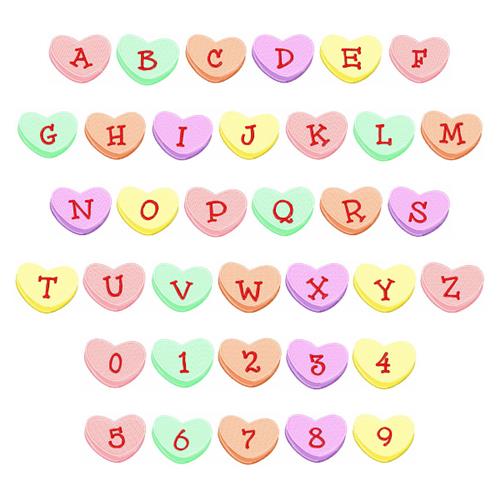
Embroidery Patterns is happy to present Conversation Hearts Font machine embroidery font which has Decorative machine embroidery font with bold red letters set against pastel heart-shaped candies, ideal for personalizing holiday gifts and decorations. Available in PES, DST, and 11 other formats. included. If you would like to view more embroidery fonts and alphabets please search our embroidery fonts page.
4 heights: 1.25″, 1.5″, 1.75″, 2″.